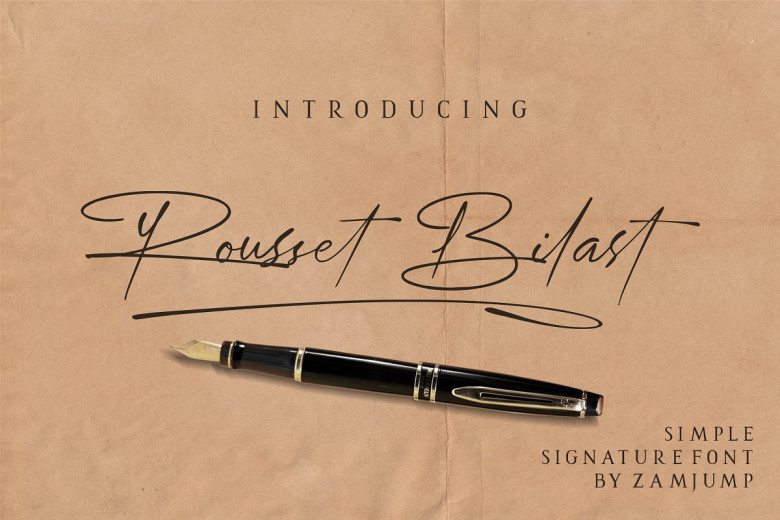
Rousset Bilast Font
Rousset Bilast is an elegant handwritten font with calligraphy-inspired character that makes for stunning logos, wedding invitations, photography watermarks on logos and modern websites, among other applications. Additionally, Rousset Bilas features heart connectors as well as handwritten ligatures and swashes at its end that can be used with lowercase letters to complete its signature style.
Rousset Bilast Signature Font